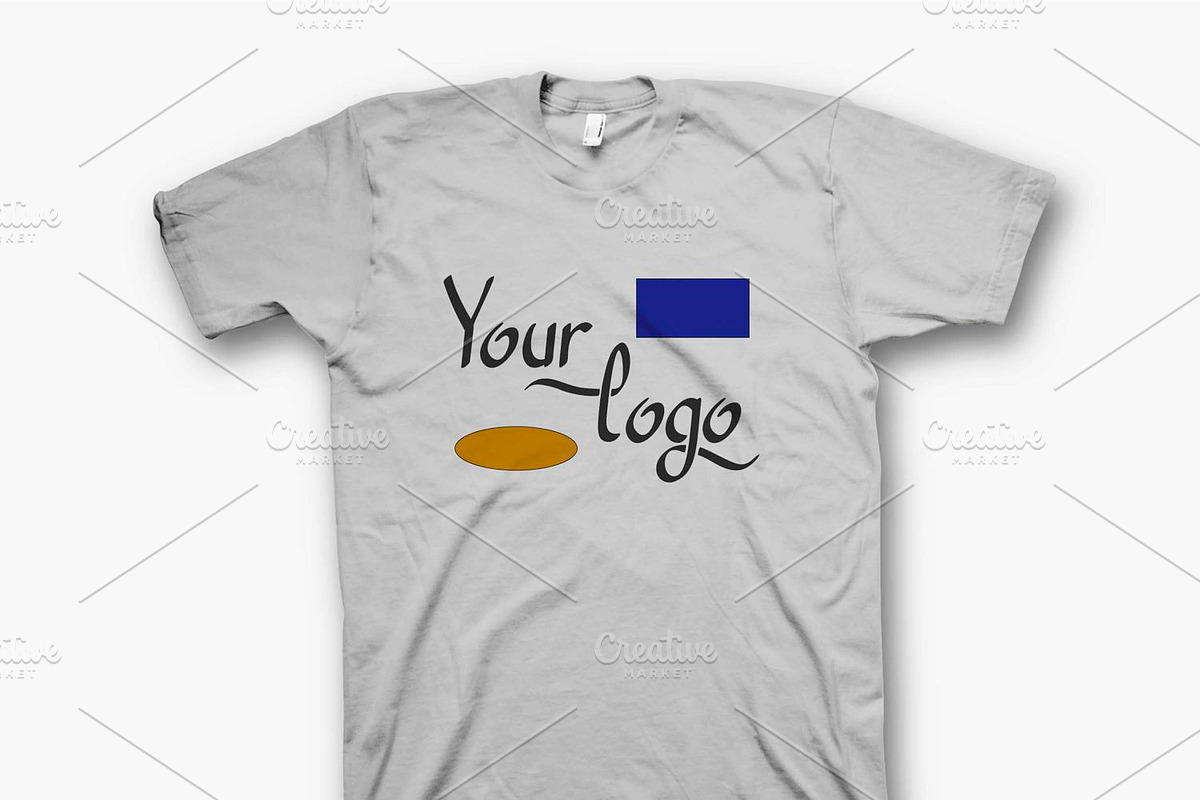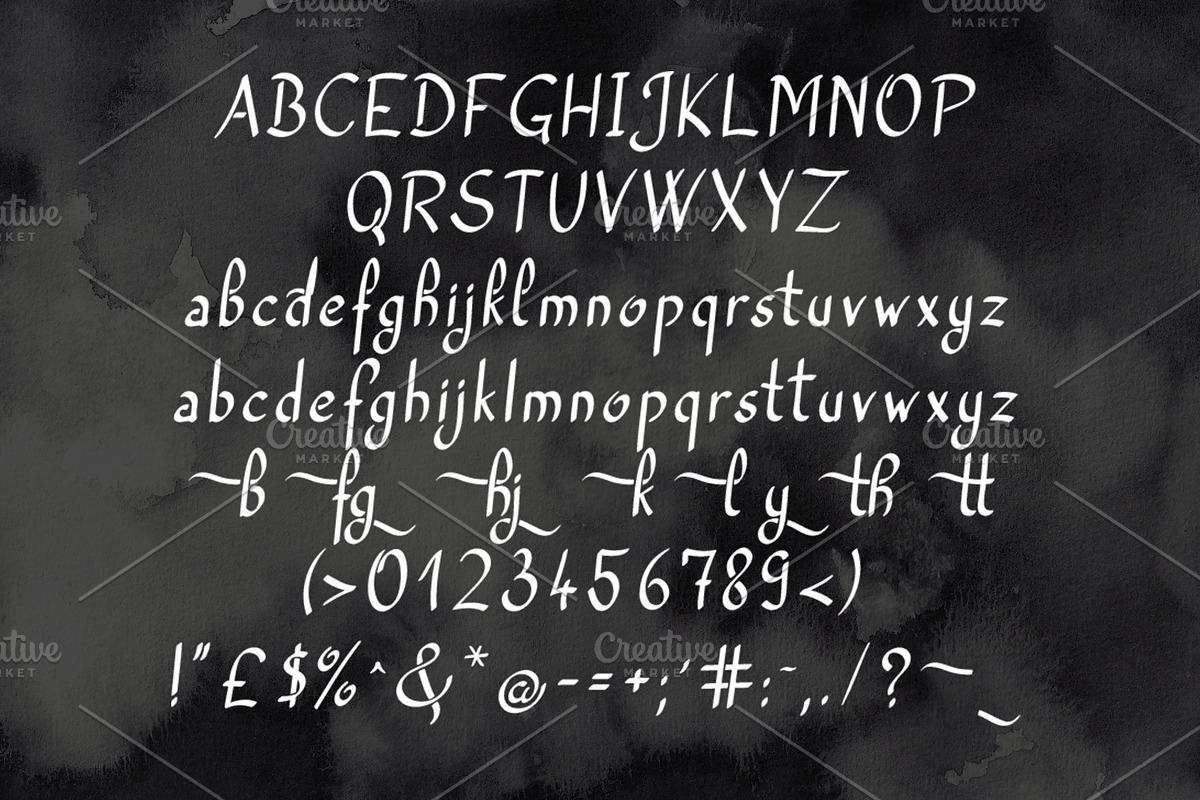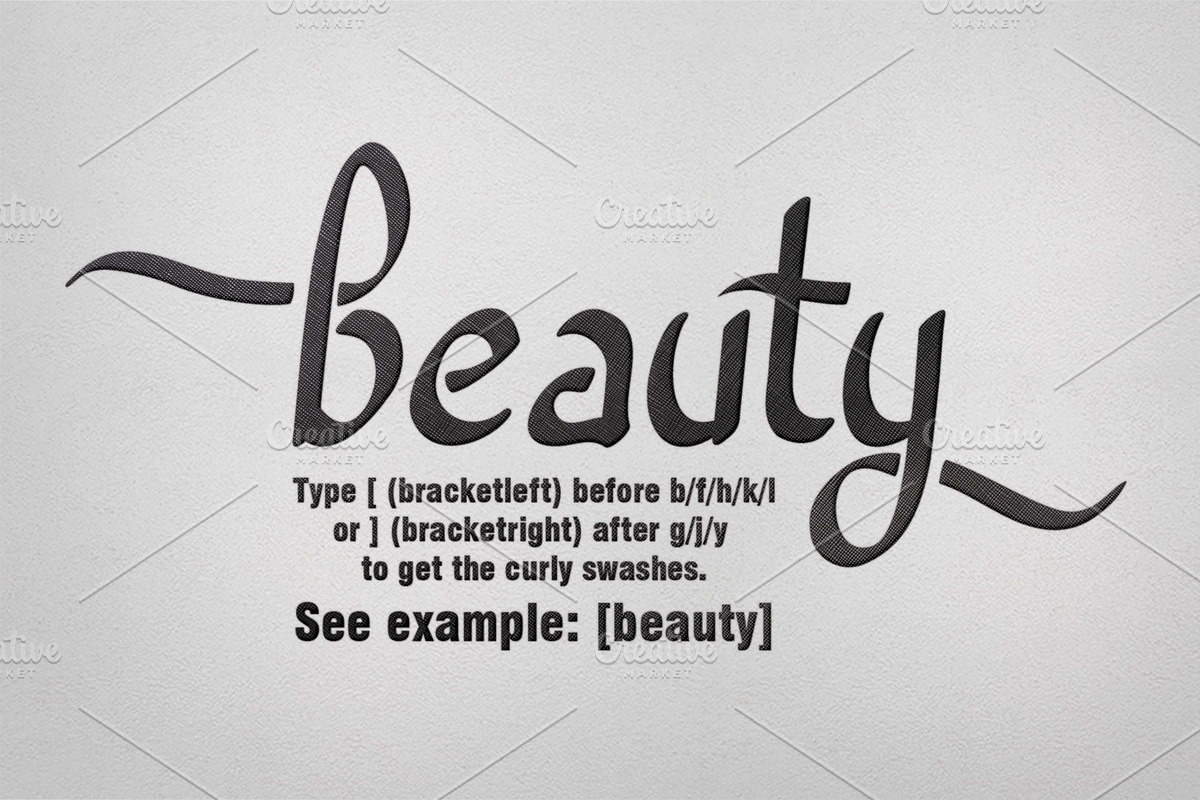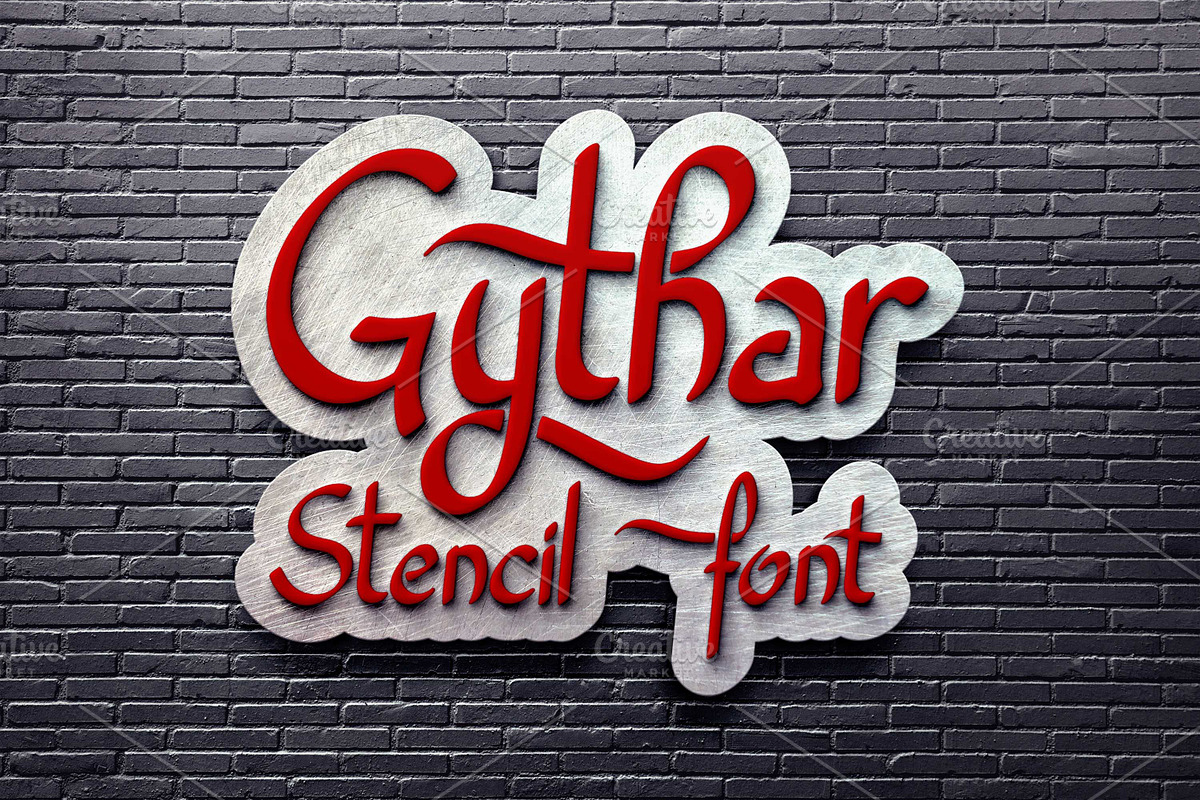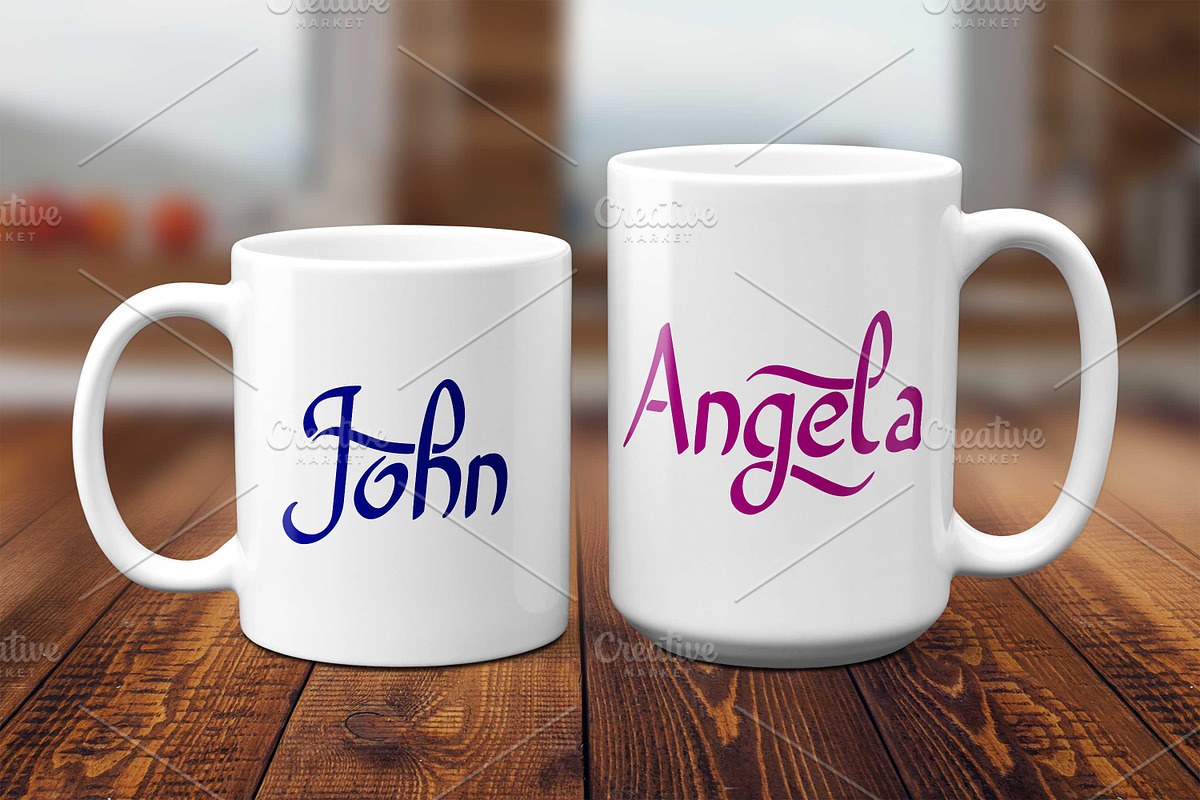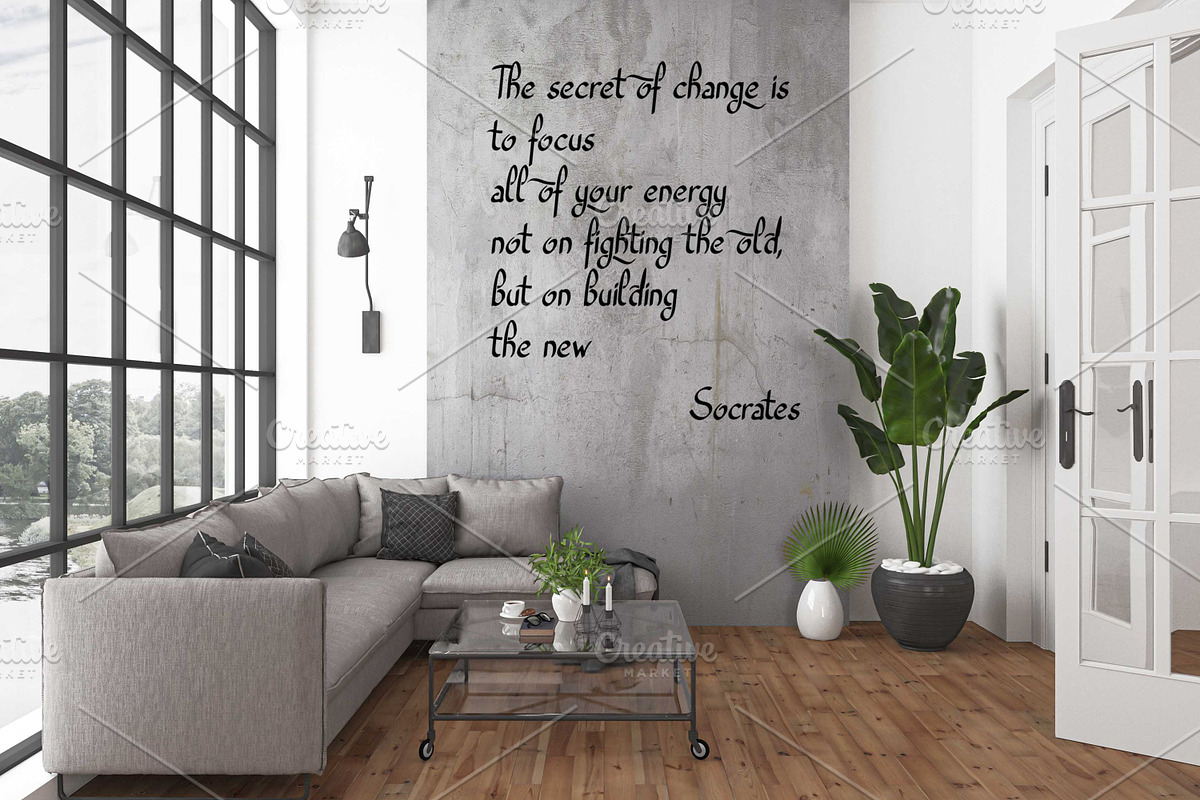
Gythar
Gythar is a carefully crafted handwritten stencil font, crafted without closed loops on the characters, so you can create truly unique and original looking designs.
Perfect for logos, packaging and more!